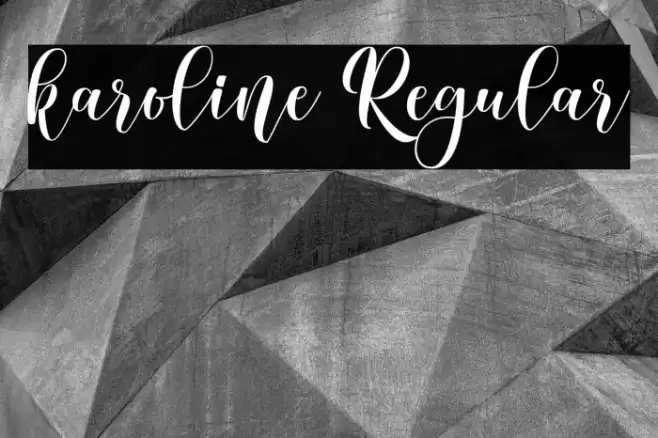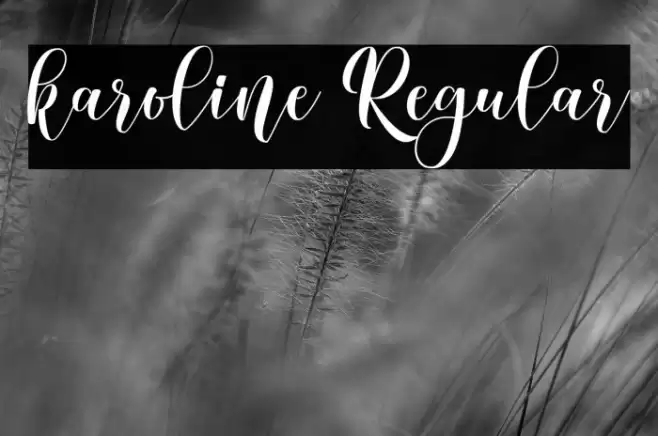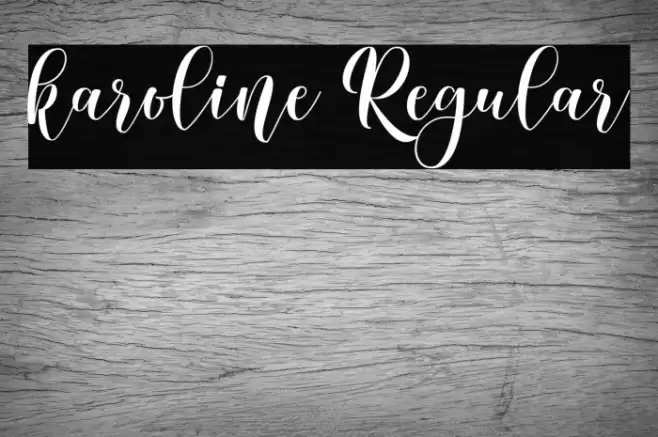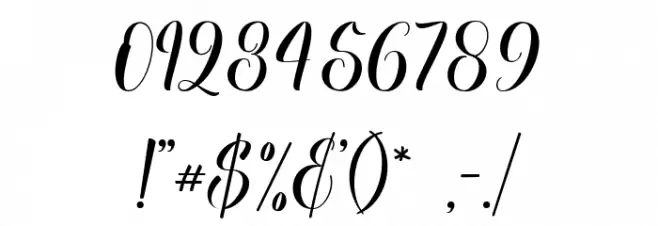
karoline Regular Font
karoline Regular Description
This elegant script font features flowing, interconnected letters with a calligraphic style. The uppercase letters are bold and expressive, with sweeping curves and flourishes that add a touch of sophistication. The lowercase letters maintain a consistent style, with smooth transitions and delicate loops. The numerals are equally stylish, matching the overall aesthetic with their graceful curves. Special characters are designed with the same attention to detail, ensuring a cohesive look across all glyphs. This font exudes a sense of elegance and refinement, making it ideal for projects that require a touch of class.
An elegant script font with flowing, interconnected letters and calligraphic style from Regular fonts.
- Proposed Projects: Ideal for wedding invitations, elegant branding, luxury packaging, and decorative headlines.
- Overall Style: Elegant, Calligraphic
- Use Case: Invitations, Branding, Decorative Headlines